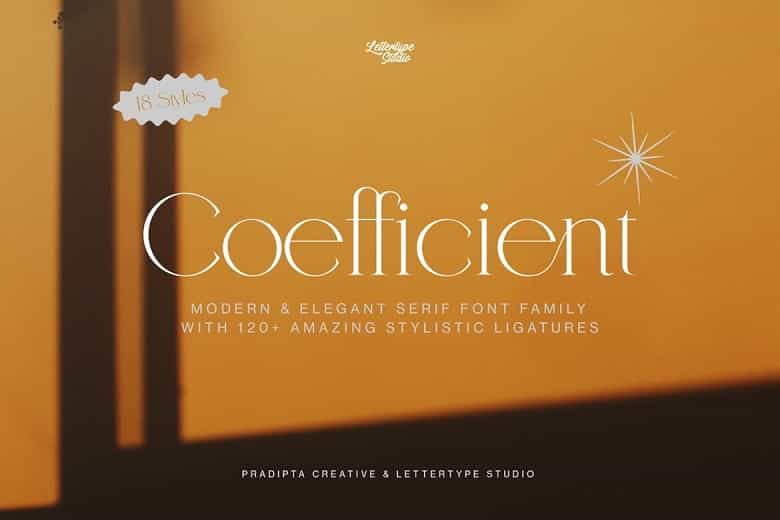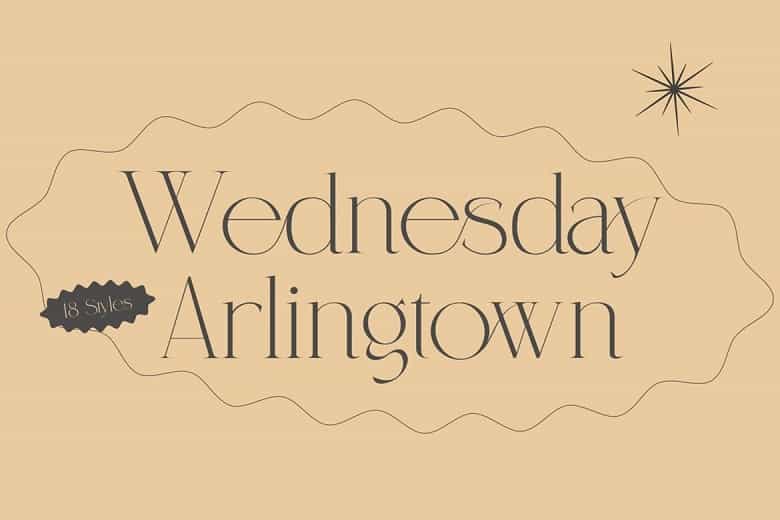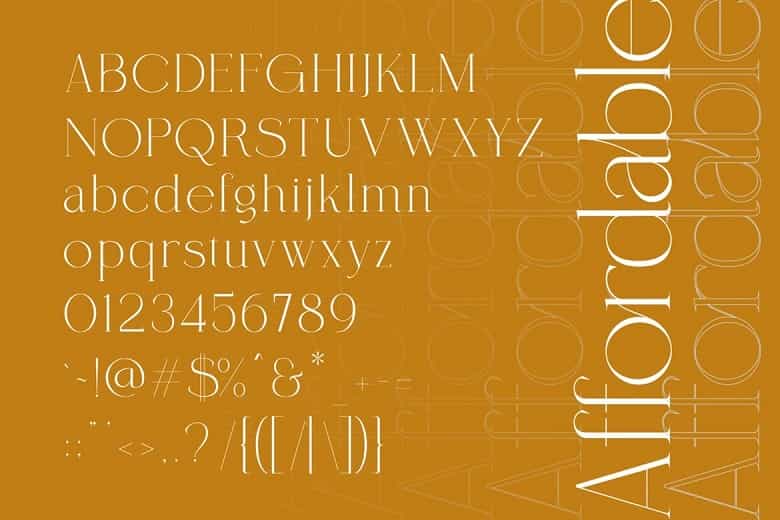
Coefficient is a contemporary serif font that has the style of the 18th century typography. Great for advanced branding, editorial design, typography for the web and many other applications. These fonts have a classic look adorned with clean lines, geometric and luxurious elements which make your projects look fantastic and sophisticated. Perfect for designers who want to have a lot of variety and elegance in their type related decisions.